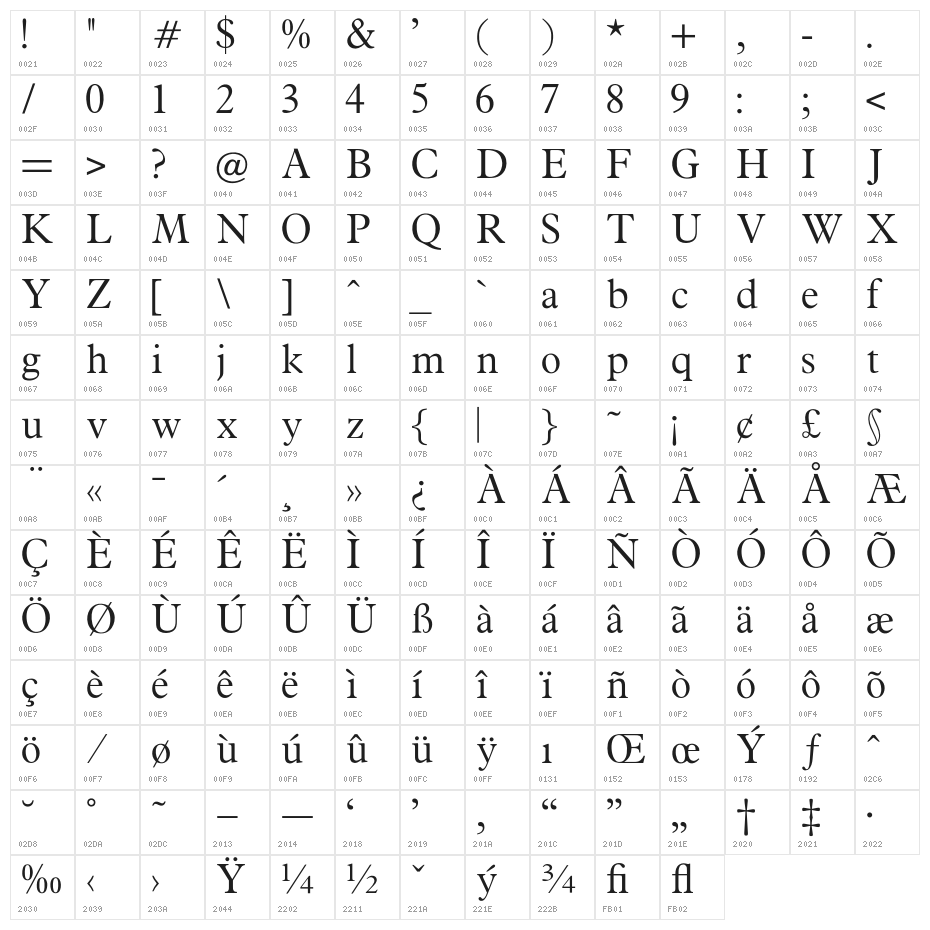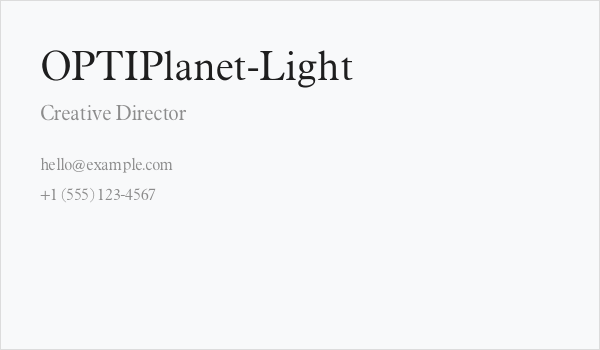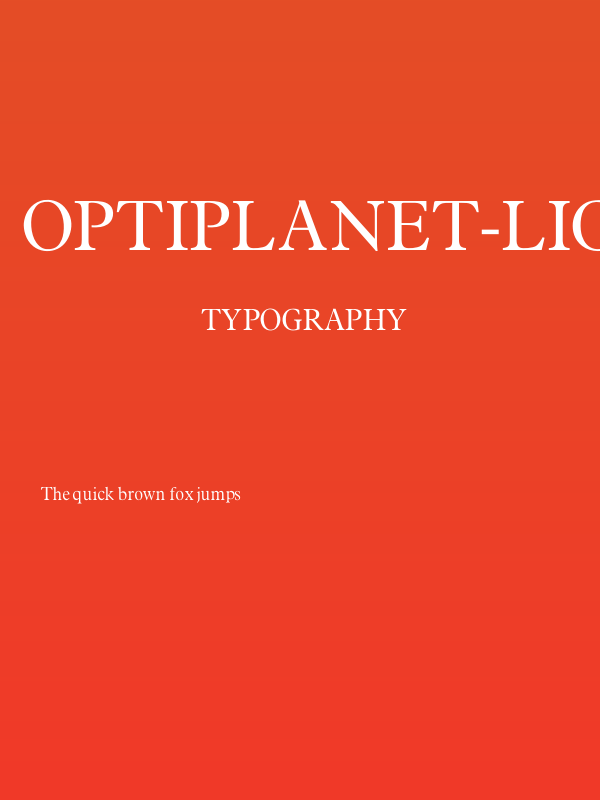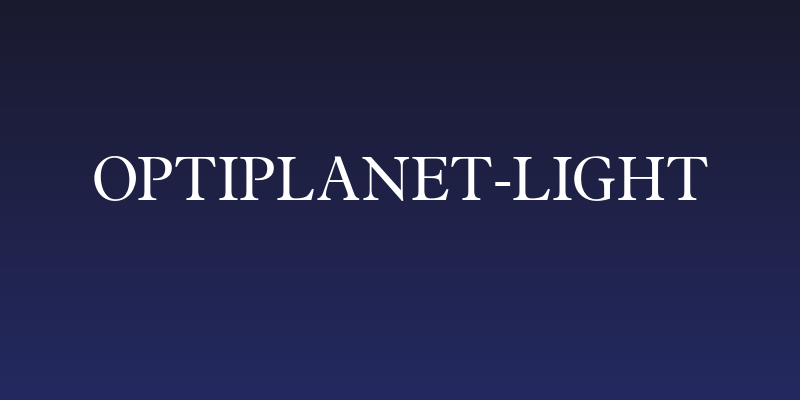
OPTIPlanet-Light Font
OPTIPlanet-Light Description
This font exhibits a classic serif style with elegant and refined strokes. The characters are well-proportioned, featuring a traditional serif design that enhances readability and sophistication. The uppercase letters are bold and commanding, while the lowercase letters maintain a graceful flow. The numerals are clear and distinct, making them suitable for both text and numerical data. Special characters are thoughtfully designed, maintaining the overall aesthetic of the font. The font's light weight adds a touch of delicacy, making it ideal for formal and professional applications.
| Proposed Projects | Ideal for editorial design, book covers, formal invitations, and corporate branding. |